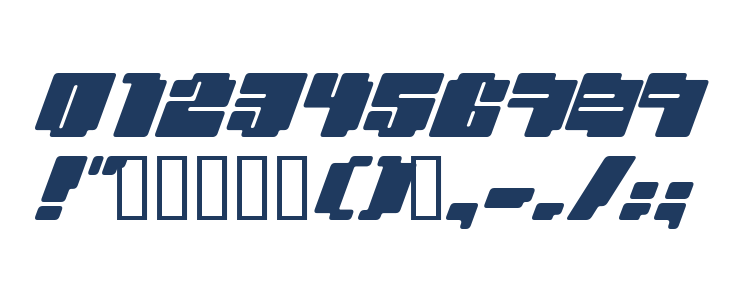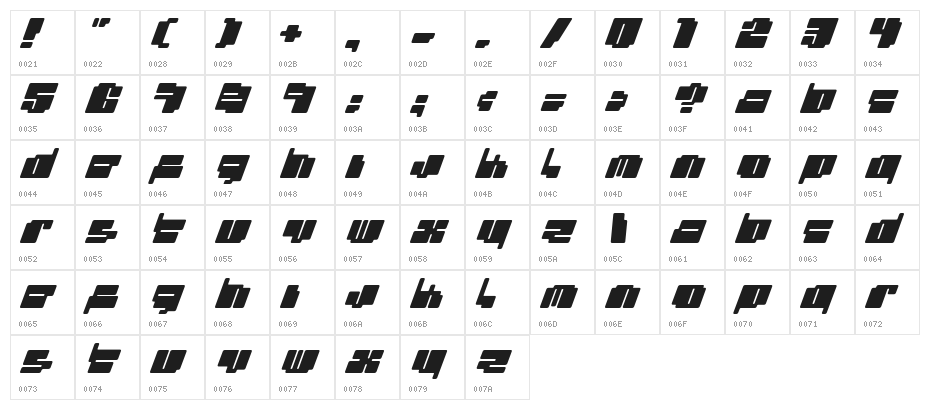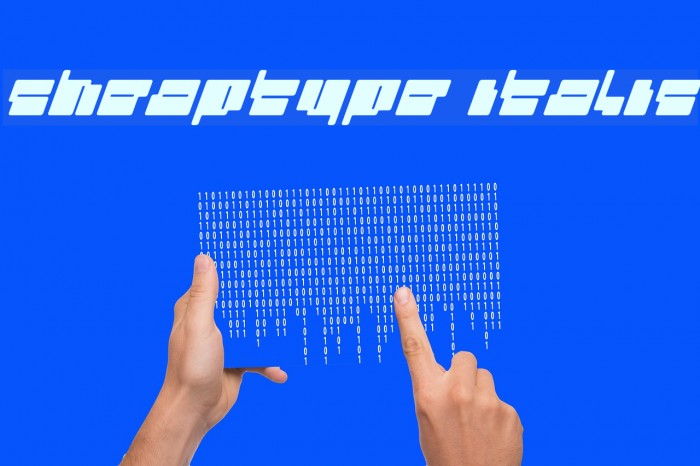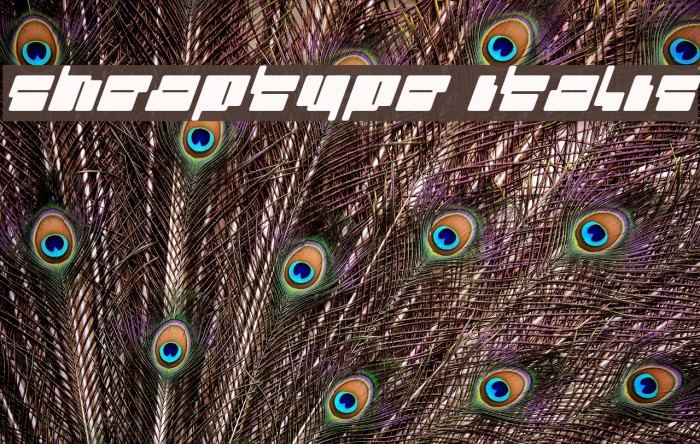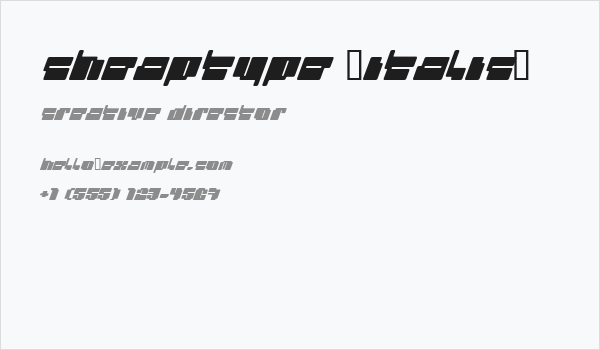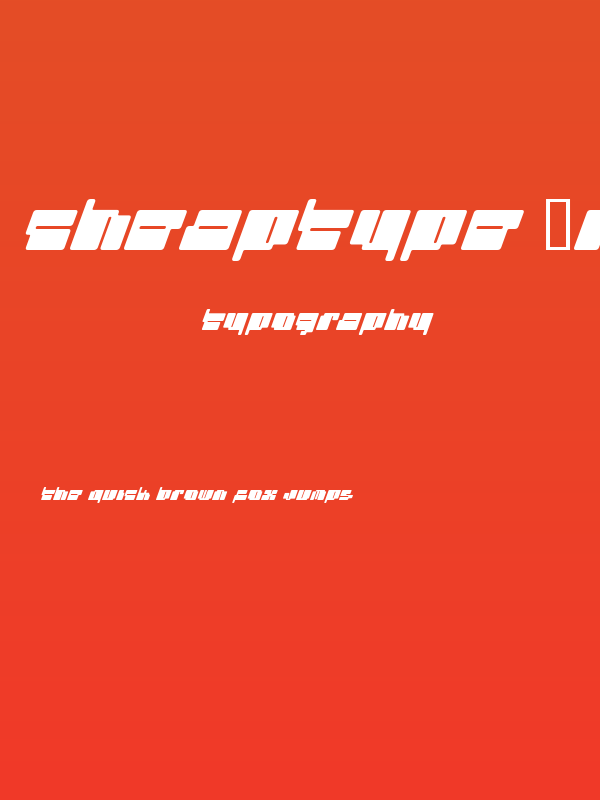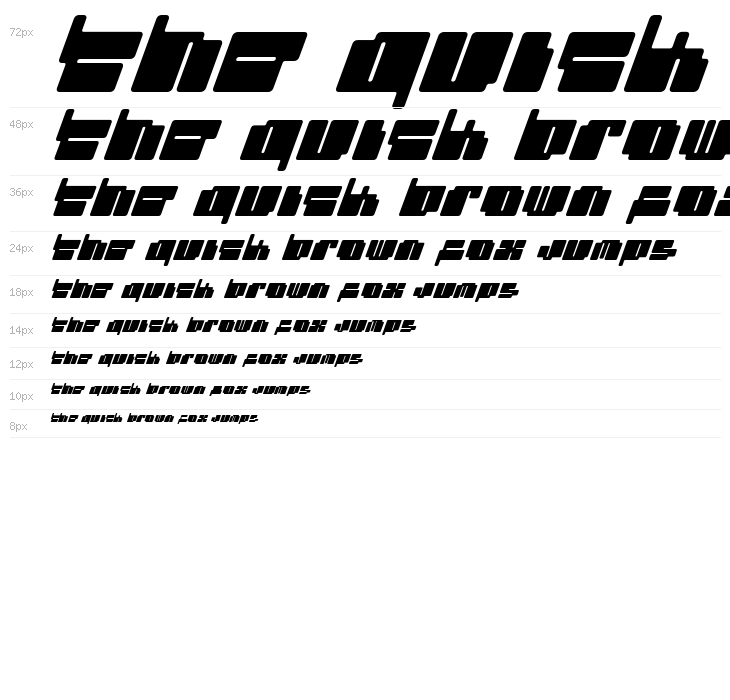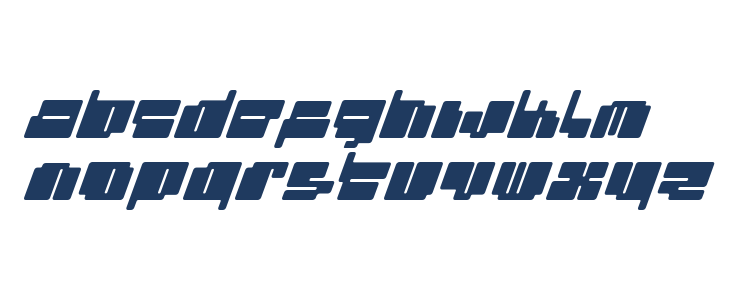
cheaptype [italic] Font
cheaptype [italic] Description
This font features a bold and angular design with a distinctly modern and futuristic aesthetic. The characters are heavily stylized with sharp edges and a blocky appearance, giving them a strong visual impact. The italic slant adds a dynamic feel, enhancing the sense of movement and speed. The uppercase and lowercase letters maintain a consistent style, with uniform stroke thickness and a geometric structure. The numbers and special characters follow the same design principles, ensuring a cohesive look across all elements. This font is ideal for projects that require a bold statement or a tech-inspired theme.
| Proposed Projects | Ideal for tech-themed designs, video game graphics, futuristic branding, and bold headlines. |